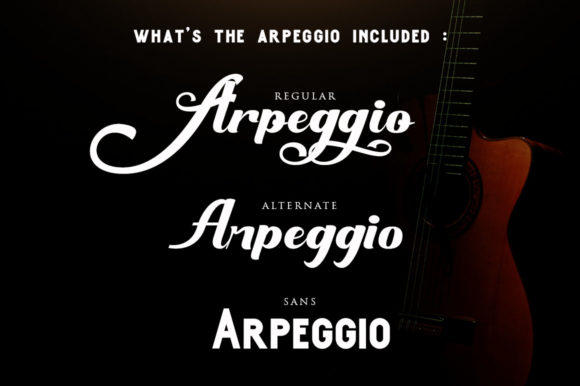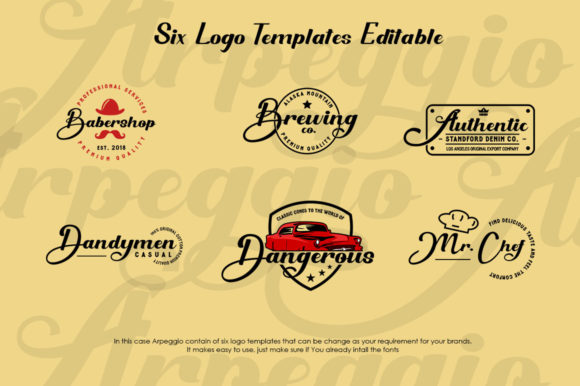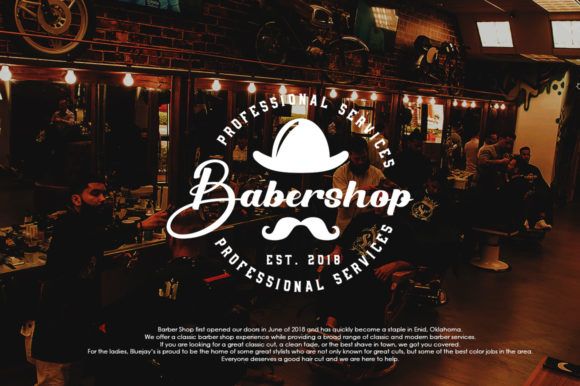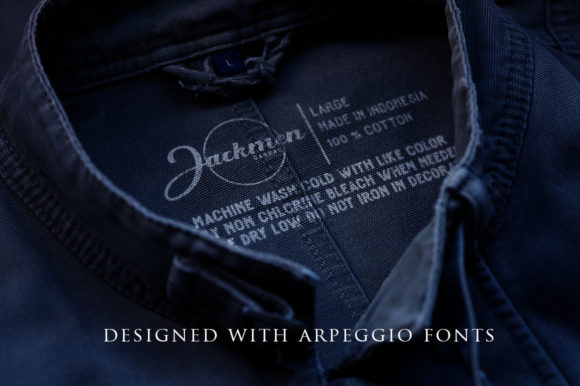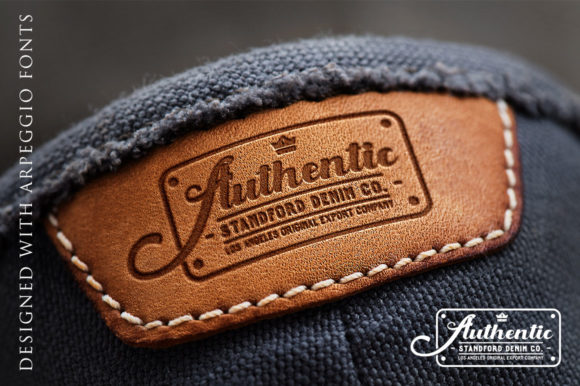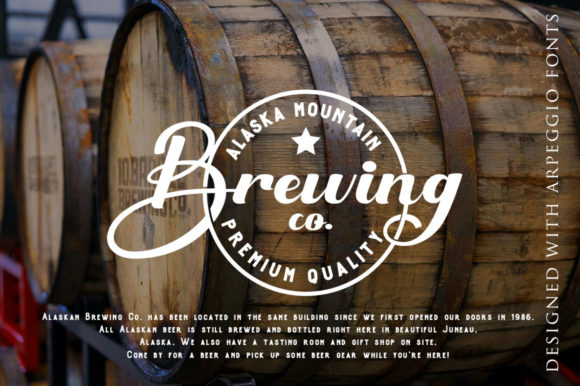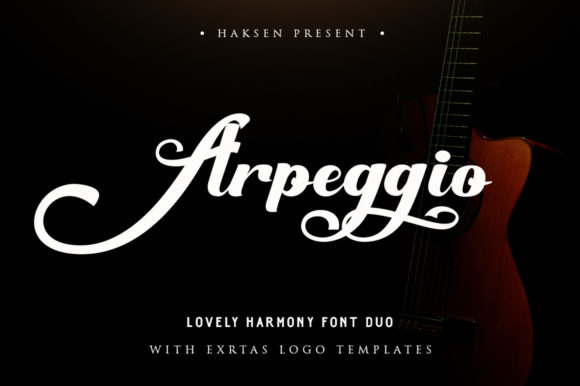
Introducing Arpeggio Duo Font: Elevate Your Designs with a Handmade Script and Sans Pairing
Are you tired of using the same old fonts in your designs? Look no further than the Arpeggio Duo Font, a unique and versatile handmade font duo that will take your creations to the next level. This exciting font pairing consists of a beautiful script and sans version, offering endless possibilities for crafting stunning designs. Whether you’re a designer, crafter, or DIY enthusiast, the Arpeggio Duo Font is the perfect addition to your toolkit.
What is Arpeggio Duo Font?
The Arpeggio Duo Font is a carefully crafted font duo that includes a script and sans version. This thoughtful pairing allows you to create multiple unique designs, from elegant and sophisticated to playful and modern. The handmade nature of the font gives it a personal touch, making it perfect for projects where you want to add a bit of character and flair.
Key Features of Arpeggio Duo Font
- Script and Sans Version: The Arpeggio Duo Font includes both a beautiful script and sans version, giving you the flexibility to create a wide range of designs.
- Handmade with Love: Each letter has been carefully crafted by hand, giving the font a unique and personal touch.
- 6 Bonus Logo Templates: To help you get started, the Arpeggio Duo Font comes with 6 exclusive logo templates that you can use to create stunning designs in no time.
- Multipurpose: This font duo is suitable for a variety of projects, including greeting cards, branding materials, business cards, quotes, posters, and more!
With the Arpeggio Duo Font, the design possibilities are endless. Here are a few ideas to get you started:
- Greeting Cards: Create beautiful and unique greeting cards for special occasions like weddings, birthdays, and holidays.
- Branding Materials: Use the Arpeggio Duo Font to create stunning branding materials, such as logos, brochures, and packaging.
- Business Cards: Stand out from the crowd with elegant and professional business cards that showcase your personality.
- Quotes and Posters: Create inspiring quotes and posters that are perfect for social media, blogs, or office decor.
Why Choose Arpeggio Duo Font?
So why choose the Arpeggio Duo Font over other fonts? Here are a few reasons:
- Unique and Versatile: The Arpeggio Duo Font is a one-of-a-kind font duo that offers endless possibilities for creating unique designs.
- High-Quality: The font is carefully crafted with attention to detail, ensuring that it looks great in any design.
- Easy to Use: The Arpeggio Duo Font comes with 6 bonus logo templates, making it easy to get started with your designs.